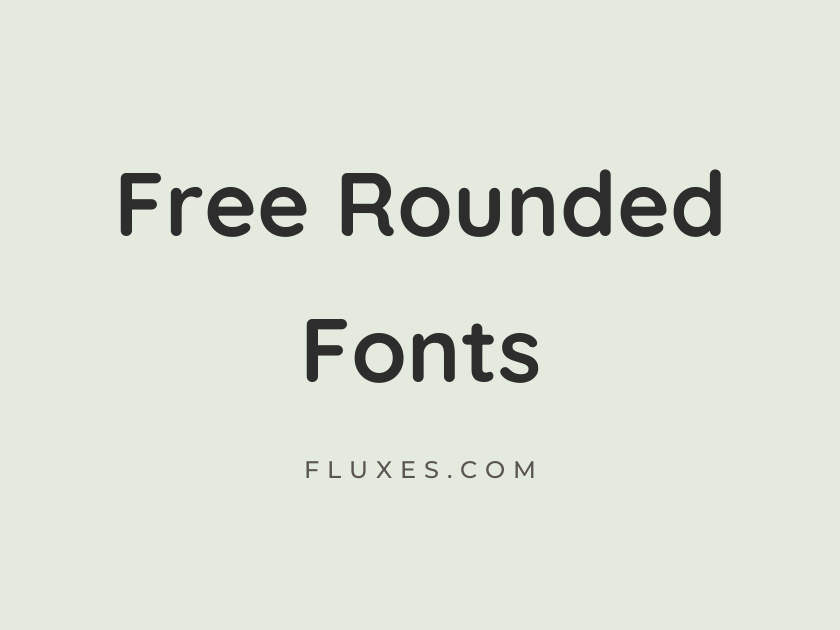
60 Best Free Rounded Fonts
Rounded fonts soften a layout the instant they appear. The terminals curve instead of cutting off sharp, the strokes feel like they were drawn with a marker rather than a blade, and the whole page reads as approachable, warm, and a little playful. That makes this style a natural fit for children’s brands, food and beverage packaging, app interfaces, greeting cards, toy and game logos, and any project that wants to feel friendly rather than formal.
Free rounded fonts on Google Fonts cover a huge range, from restrained geometric sans-serifs that work as body text to chunky bubble letters built for a single punchy headline. Picking the right one is mostly about matching the roundness to the mood: a light rounded sans for a wellness app, a fat bubble display for a candy shop, a rounded handwriting face for a birthday invitation.
1. Quicksand
Soft curves for a friendly brand voice
Quicksand’s low-contrast, geometric letterforms make it one of the most reliable rounded sans-serifs for headings on the web. It reads clean at large sizes and pairs comfortably with a plainer body text font like Nunito Sans or Karla when a project needs contrast between display and paragraph type.
2. Comfortaa
Bubbly headlines with a modern twist
Comfortaa leans further into geometry than most rounded sans options, with perfectly circular bowls and a distinct lowercase “a” and “g”. It suits logotypes and short display lines better than long paragraphs, where its quirks can start to feel busy.
3. Nunito
Warm, easy-to-read type for any app
Few free fonts balance friendliness and legibility as well as Nunito. It holds up in interface copy, marketing headlines, and even body paragraphs, which is why it has become a default choice for startups that want approachable branding without sacrificing readability.
4. Nunito Sans
Clean rounded text that never shouts
Where Nunito leans a bit playful, its sibling Nunito Sans dials the roundness back into something closer to a neutral workhorse. It is the one to reach for when body copy needs to sit quietly under a bolder rounded headline.
5. Varela Round
Simple rounded letters, endlessly useful
Varela Round offers one weight and does its job without fuss: soft, even strokes with a slightly condensed rhythm that fits nicely into navigation bars and buttons.
6. Baloo 2
Bold rounded type for playful branding
Originally developed to support Indian scripts alongside Latin, Baloo 2 has become a go-to for chunky, huggable headlines. Its heavier weights carry real presence on packaging and posters, while the family’s multiscript roots make it a smart pick for projects that need consistency across languages.
7. Fredoka
Cheerful lettering for kids and toys
Fredoka is built for joy. The variable font’s rounded terminals and generous curves feel tailor-made for children’s products, birthday materials, and any brand that wants to look like it’s smiling.
It also comes in a wide weight range, so a single family can carry both a bold display headline and a softer subheading without introducing a second typeface.
8. Rubik
Rounded corners for modern interfaces
Rubik trades bubble-letter cuteness for something closer to a friendly grotesque, with just enough rounding at the corners to feel approachable in dashboards and product UI. It is a dependable alternative when a brand wants warmth without looking like a kids’ app.
9. M PLUS Rounded 1c
Clean rounded type for global interfaces
M PLUS Rounded 1c
Developed in Japan, this family balances rounded softness with real functional clarity, making it a strong choice for multilingual apps and signage that need to feel welcoming without losing precision at small sizes.
10. Balsamiq Sans
Friendly sketch-style type for mockups
Balsamiq Sans
Born from the Balsamiq wireframing tool, this face keeps a hand-drawn, comic-adjacent charm while staying far more legible than a true script. It works nicely for casual UI mockups, sticky-note graphics, or any design that wants a low-pressure, sketchbook feel.
11. Chewy
Thick bubble letters for candy branding
Chewy earns its name; the strokes look almost inflated. It is built for short bursts of display text, logos, and packaging where a candy-shop or cartoon energy is the goal, and it gets muddy fast if pushed into anything longer than a headline.
12. Sniglet
Puffy rounded letters for playful headlines
Sniglet’s soft, doughy shapes make it a natural for children’s book covers, party invitations, and anything else that should look like it was drawn with a crayon.
13. Comic Neue
Test any rounded font at the sizes it will actually be used. Some of the chunkier bubble styles look wonderful at 80 pixels and turn to mush at 12.
Rounded type has a way of making a brand feel instantly more human, and this list only scratches the surface of what is freely available on Google Fonts. Whether the goal is a soft interface font, a candy-colored logo, or a handwritten note on a birthday card, there is a rounded option here built for the job.